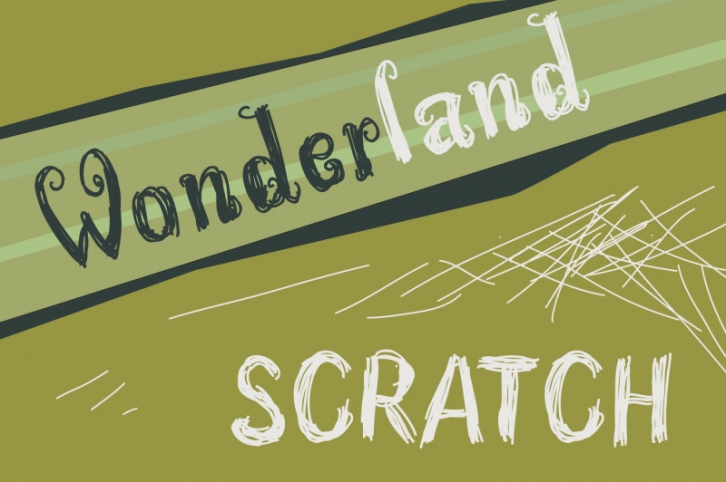
Introducing cute and fun handwritten font! This font will nice to add more fun in your design.
This font contain 300 glyphs, with complete punctuation, and supported to Latin, Eastern Europe, Baltic and Turkish characters; with extra all caps characters (activate Titling Alternates)